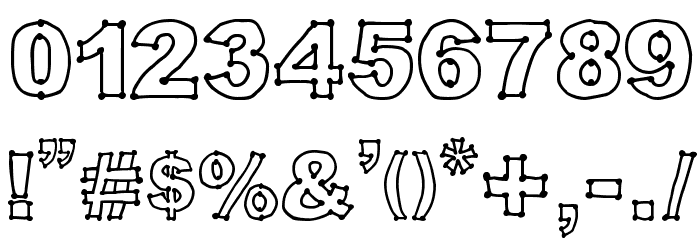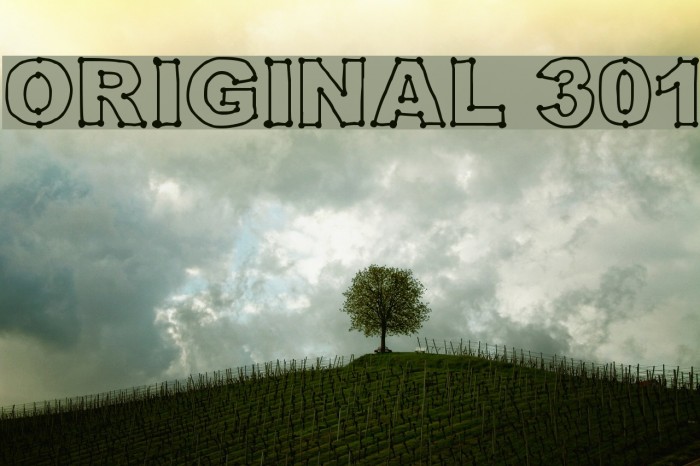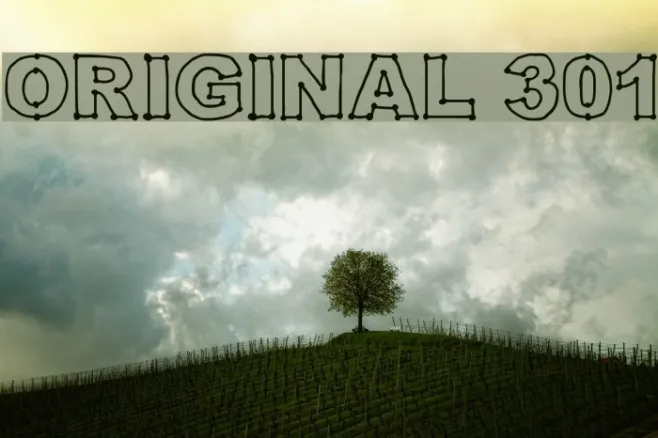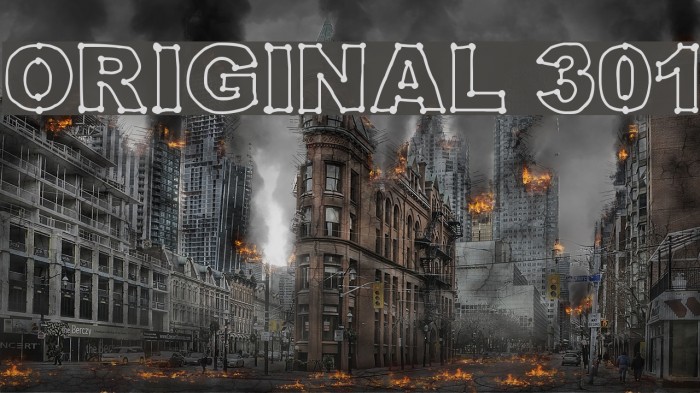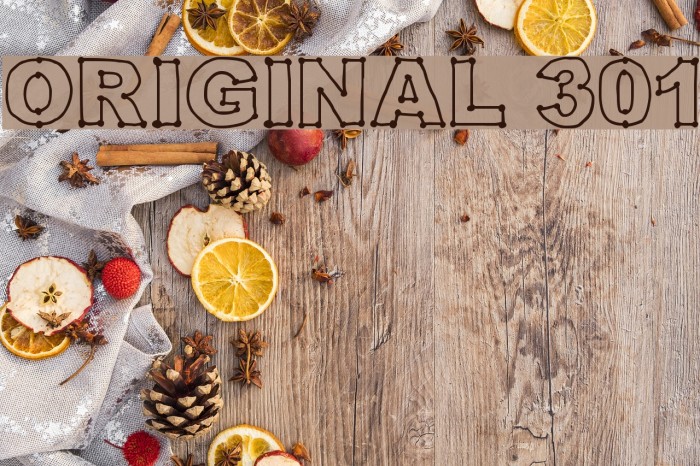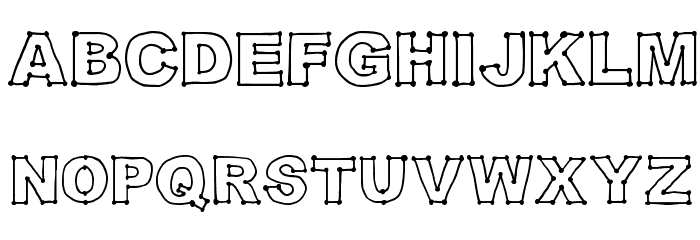
Original 301 Font
Original 301 Description
This font features a bold, outlined style with a playful and slightly retro aesthetic. Each character is defined by a thick border, giving it a three-dimensional appearance. The letters are uppercase and lowercase, with numerals and a variety of special characters included. The design is consistent across all characters, maintaining a uniform look that is both eye-catching and easy to read. The font's unique outline effect makes it stand out, suitable for projects that require a touch of creativity and flair.
| Overall Style | Retro, Playful |
| Proposed Projects | Ideal for posters, logos, headlines, and any design needing a bold, creative touch. |